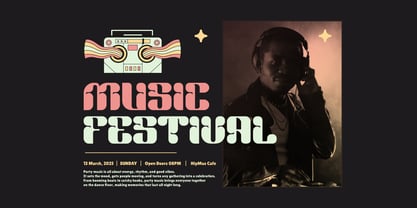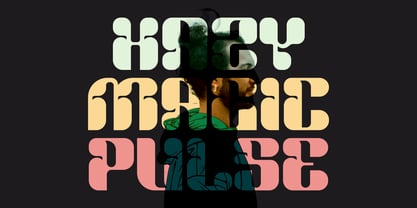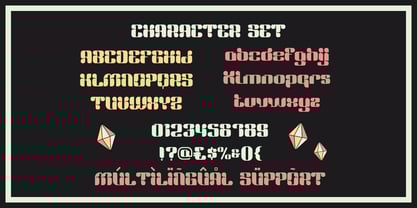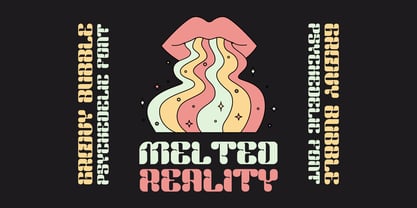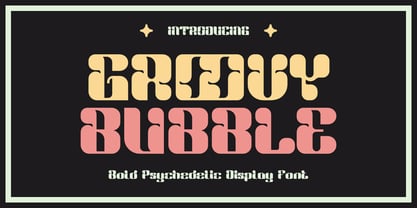
Groovy Bubble
by Shanaf
The Groovy Bubble Font Family was designed by Yesie Erma Yunita and published by Shanaf. Groovy Bubble contains 1 styles. More about this family
Groovy Bubble - Bold Psychedelic Display Font is a captivating and vibrant digital typeface that breathes life into any creative project with its bold and expressive character forms. Drawing inspiration from the colorful era of retro and psychedelic aesthetics, this font boasts chunky, bubble-like letters that create an exuberant and playful visual impact. Each glyph features smooth, rounded edges combined with thick, bold strokes, delivering a distinctive, fluid appearance reminiscent of the groovy vibes of the '60s and '70s. Its lively personality is underscored by whimsical curves, unique letter connections, and an unmistakably vintage charm, making it stand out prominently in any layout.
Perfectly tailored for striking headlines, standout posters, and dynamic branding projects, Groovy Bubble is ideal for use in music festival promotions, retro-themed packaging, playful business branding, and attention-grabbing logo designs. Its charming and expressive style works exceptionally well on invitation cards, magazine covers, book covers, film titles, stickers, and unique crafting projects, adding an engaging, memorable visual flair. Offering a comprehensive character set, including multilingual support, uppercase, lowercase, numerals, and punctuation, this versatile display font ensures maximum flexibility. Groovy Bubble not only enhances your design's aesthetic appeal but also evokes an irresistible sense of nostalgic fun, guaranteeing your designs will pop with energy and creativity.